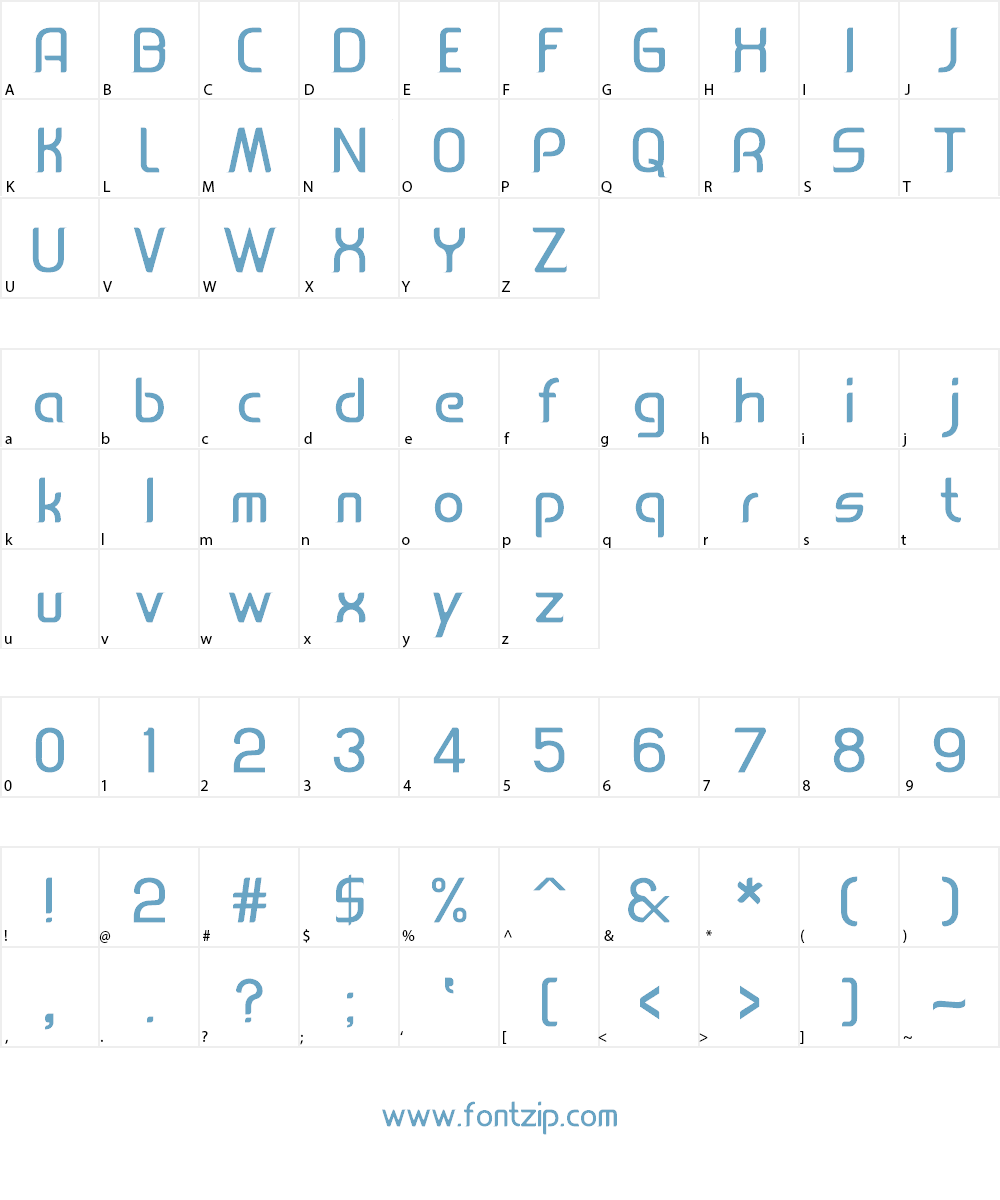
Leoscar is a modern Typeface which has been developed under an academic course on Department of Multimedia & Creative Technology, Daffodil International University. Special Thanks to my honorable teacher Abu Kalam Shamsuddin sir.